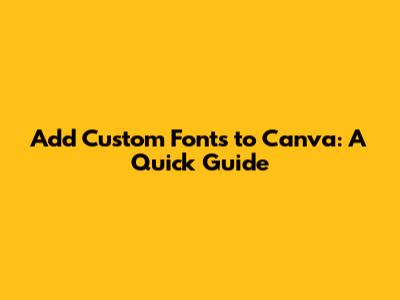
Add Custom Fonts To Canva: A Quick Guide
Hey guys! Ever felt like the fonts in Canva just weren't quite cutting it? Like you needed that special something to make your designs truly pop? Well, good news! You can actually add custom fonts to Canva, and it's way easier than you might think. This opens up a whole new world of creative possibilities, allowing you to perfectly match your brand's aesthetic or just experiment with some unique typography. So, let's dive into how you can bring your own fonts into the Canva design space and seriously level up your design game.
Why Add Custom Fonts to Canva?
Before we jump into the how, let's quickly touch on the why. Canva offers a fantastic selection of fonts, no doubt. But sometimes, you need something specific. Maybe you've got a font that's core to your brand identity, or you've stumbled upon a gorgeous typeface that you just have to use. Adding custom fonts gives you that flexibility and control. Here's a breakdown of the benefits:
• Brand Consistency: If you're running a business, maintaining a consistent brand image is crucial. Using the same fonts across all your marketing materials – from your website to your social media posts – helps build brand recognition and trust. Uploading your brand fonts to Canva ensures that all your designs stay on-brand.
• Unique Designs: Stand out from the crowd! While Canva's built-in fonts are great, they're also widely used. Using custom fonts allows you to create designs that are truly unique and eye-catching. This is especially important if you're trying to make a strong impression.
• Creative Freedom: Sometimes, you just want to experiment and play around with different typography. Adding custom fonts gives you a wider palette to work with, allowing you to explore new design styles and push your creative boundaries. Whether you're designing invitations, presentations, or social media graphics, having a diverse font library at your fingertips is a huge advantage.
• Access to Specific Styles: Certain projects might call for very specific font styles – think vintage, futuristic, or hand-lettered. While Canva has a decent selection, you might find yourself needing something more niche. Uploading custom fonts lets you access those specialized styles and perfectly tailor your designs to the task at hand.
In short, adding custom fonts to Canva empowers you to create more professional, consistent, and visually appealing designs. It's a simple process that can have a big impact on the overall quality of your work.
That's it! Once you have these three things, you're ready to start adding your own fonts to Canva.
Step-by-Step Guide: Uploading Your Fonts
Alright, let's get down to the nitty-gritty. Here's a step-by-step guide on how to upload custom fonts to Canva:
1. Log in to Canva: Open your web browser and head over to the Canva website (https://www.canva.com/). Log in to your Canva Pro account. Make sure you're logged in with the correct account if you have multiple ones.
2. Navigate to the Brand Kit: Once you're logged in, look for the "Brand Kit" option in the left-hand menu. It's usually located under the "Tools" or "More" section. Click on "Brand Kit" to open the brand management settings.
3. Find the "Brand Fonts" Section: Scroll down the Brand Kit page until you find the "Brand Fonts" section. This is where you'll manage all your uploaded fonts.
4. Click "Upload a Font": In the "Brand Fonts" section, you'll see a button that says "Upload a Font." Click this button to start the font upload process.
5. Choose Your Font File: A file explorer window will pop up, allowing you to browse your computer's files. Navigate to the folder where you saved your font files and select the .OTF or .TTF file you want to upload. Click "Open" to select the file.
6. Confirm Usage Rights: Canva will ask you to confirm that you have the rights to use the font you're uploading. This is an important step to ensure you're not violating any copyright laws. If you have the appropriate license, check the box and click "Yes, upload away!"
By following these tips, you can choose and use custom fonts effectively to enhance your designs and create a strong visual identity.
So there you have it! Adding custom fonts to Canva is a breeze, and it unlocks a ton of creative potential. By following these simple steps, you can elevate your designs, stay true to your brand, and make your visuals truly stand out. Now go forth and create some amazing designs with your newfound font superpowers! Have fun, experiment, and don't be afraid to try new things. The world of typography is vast and exciting, so dive in and explore!